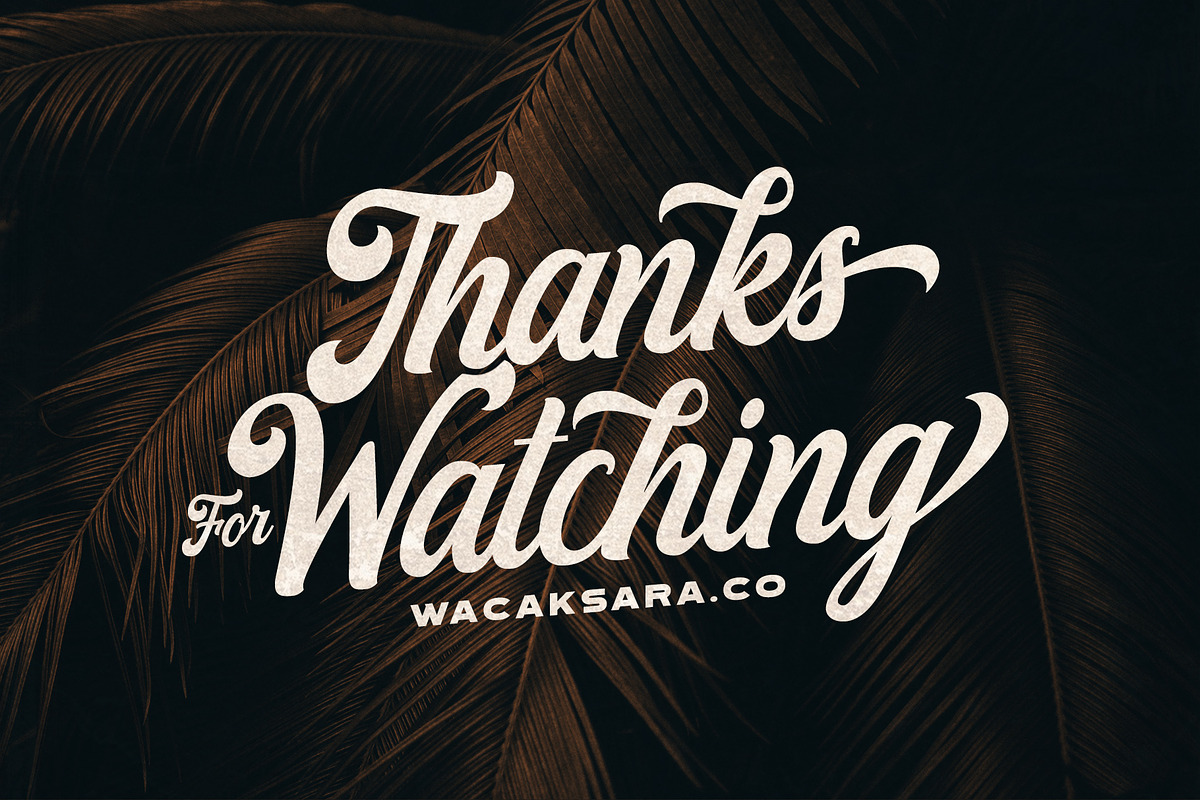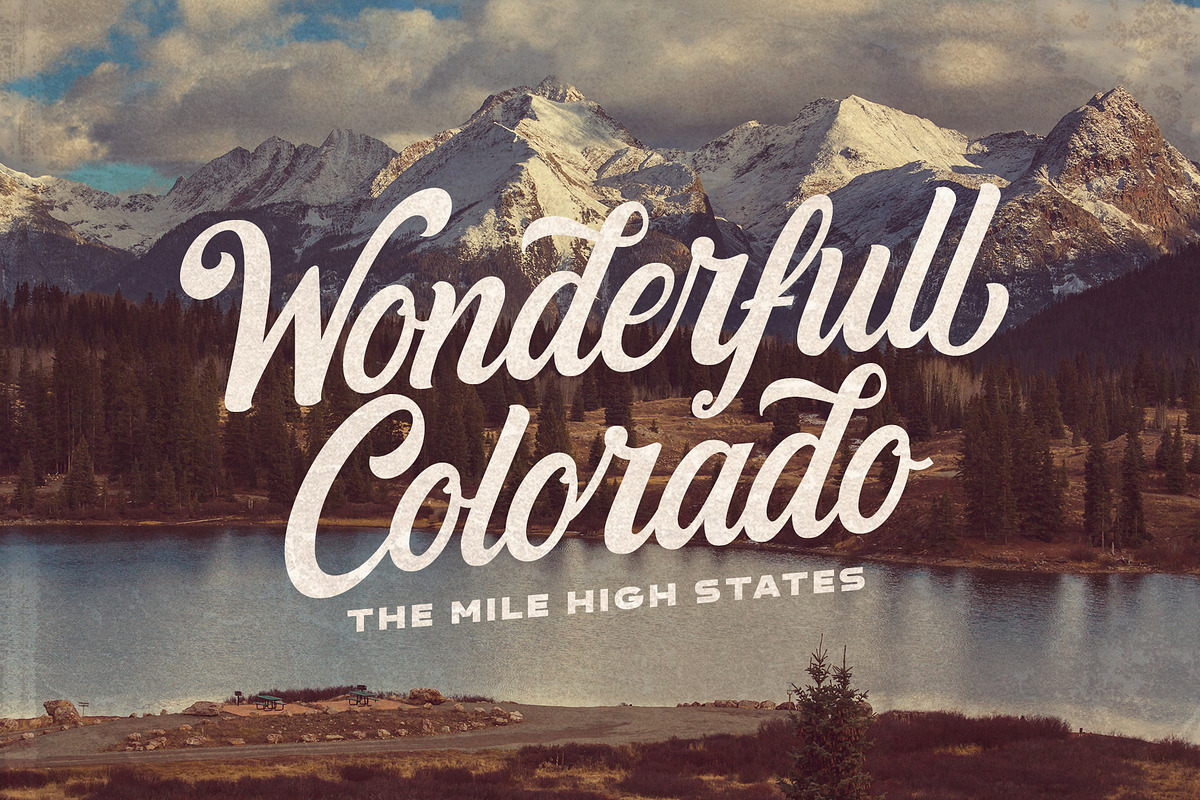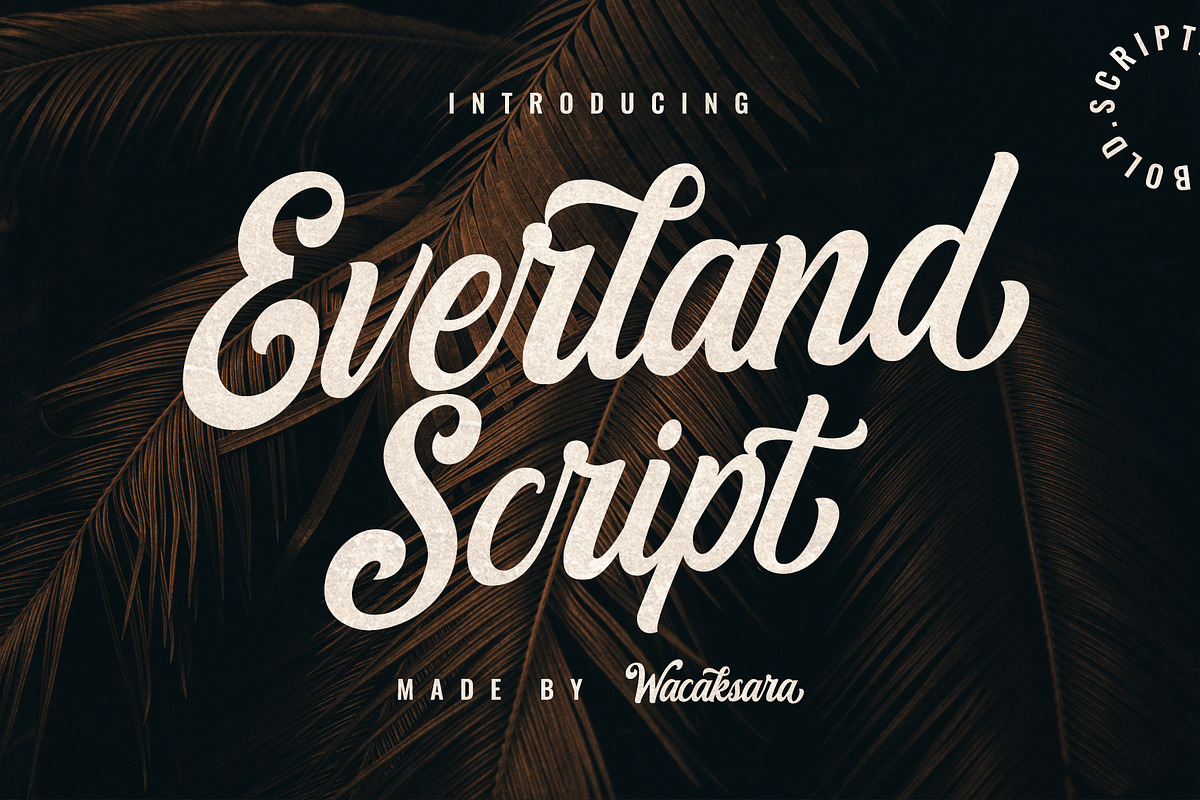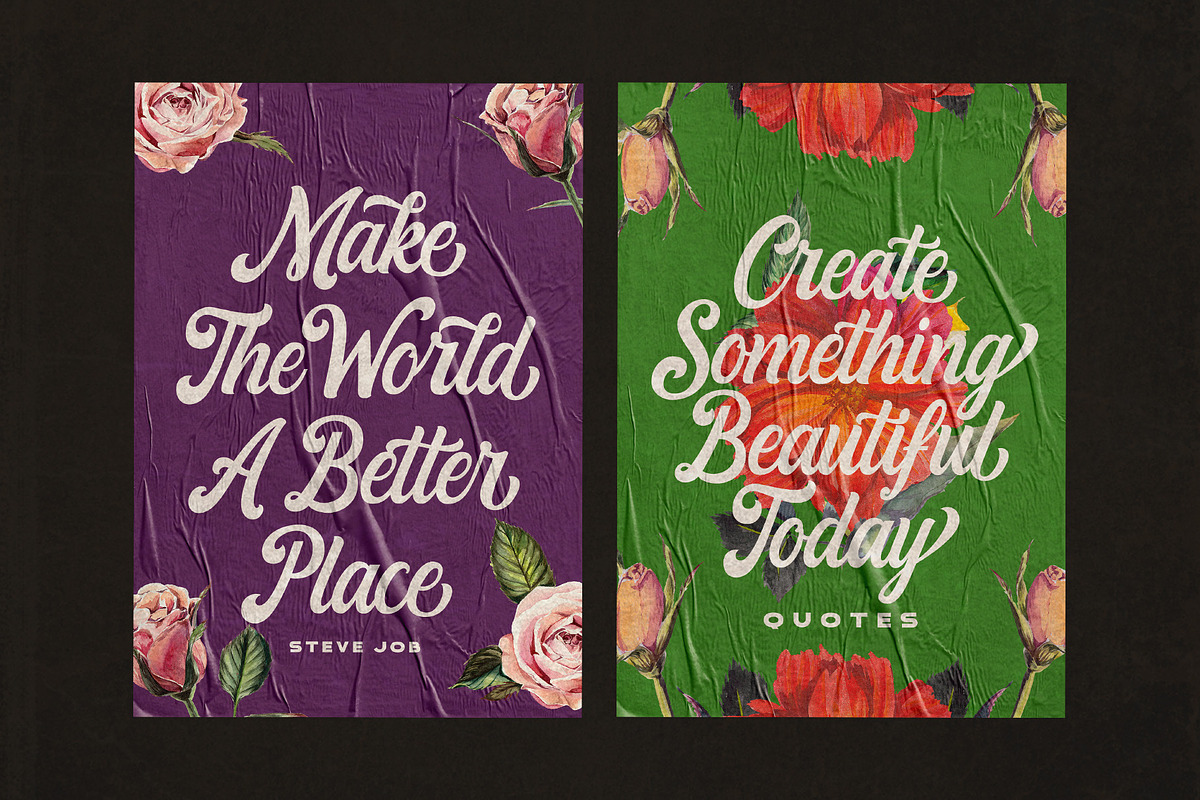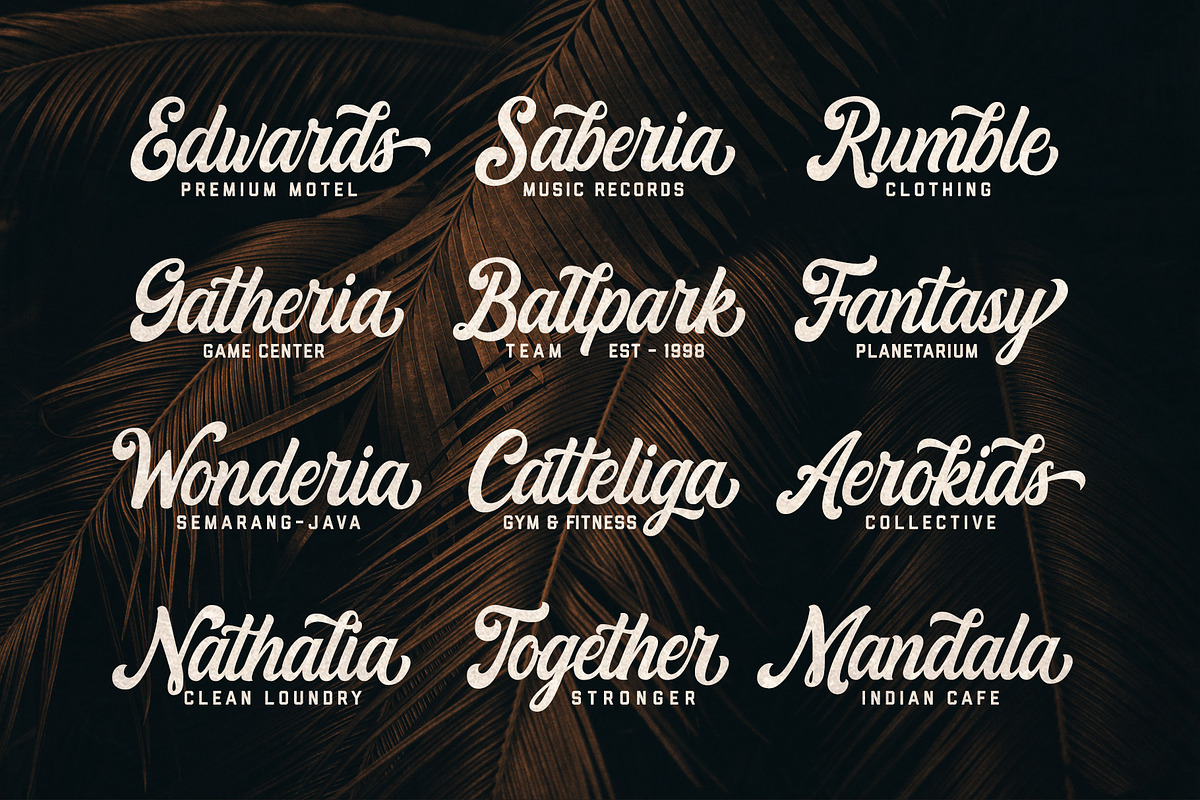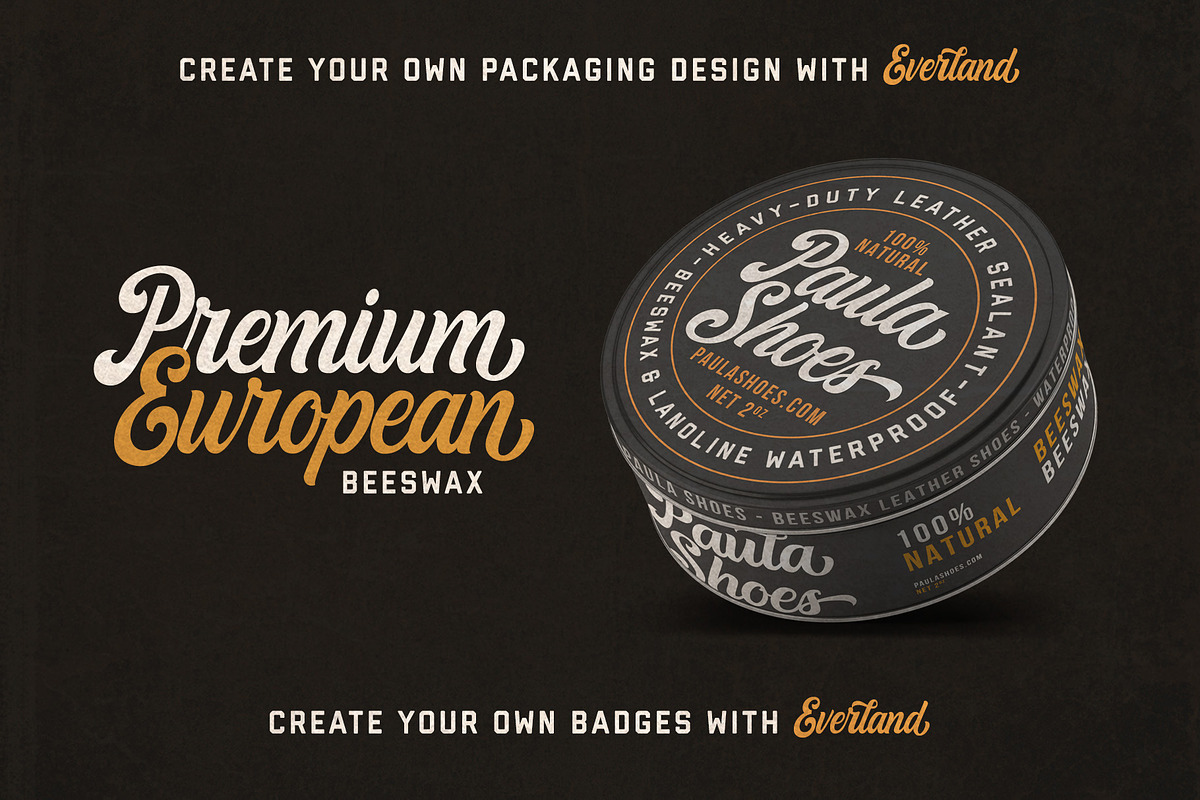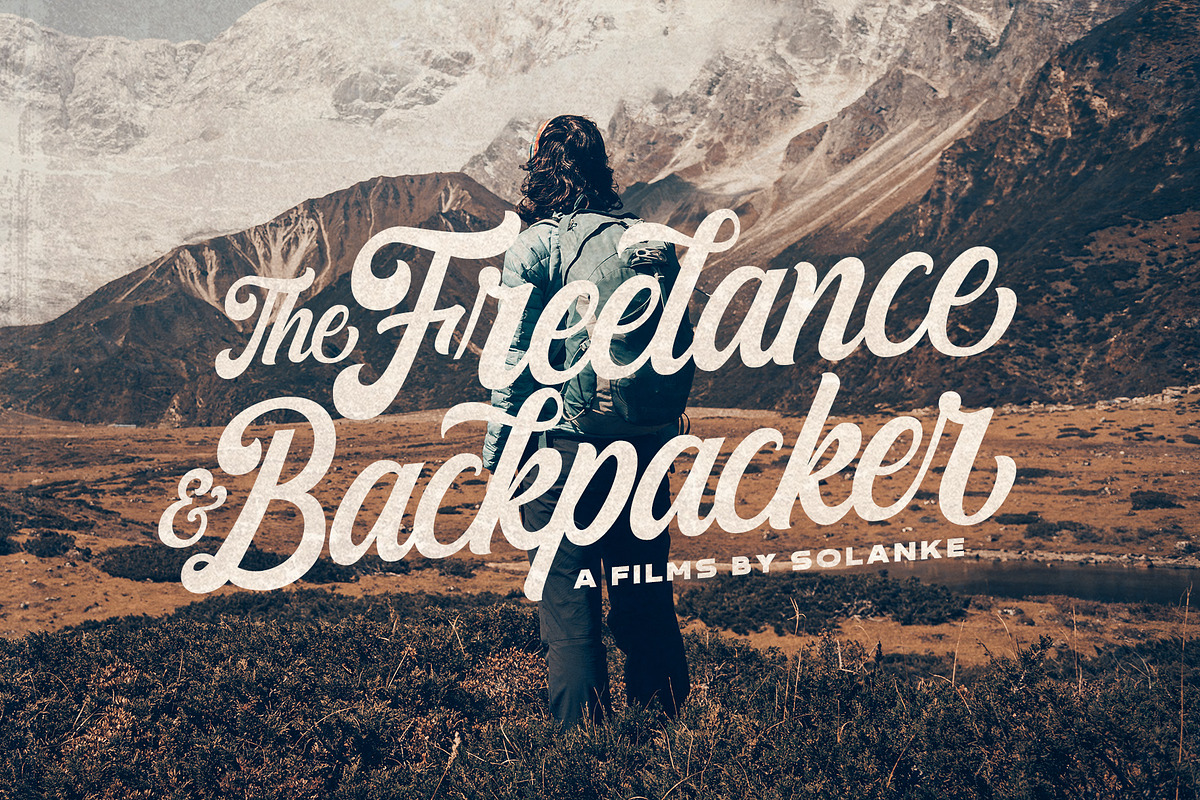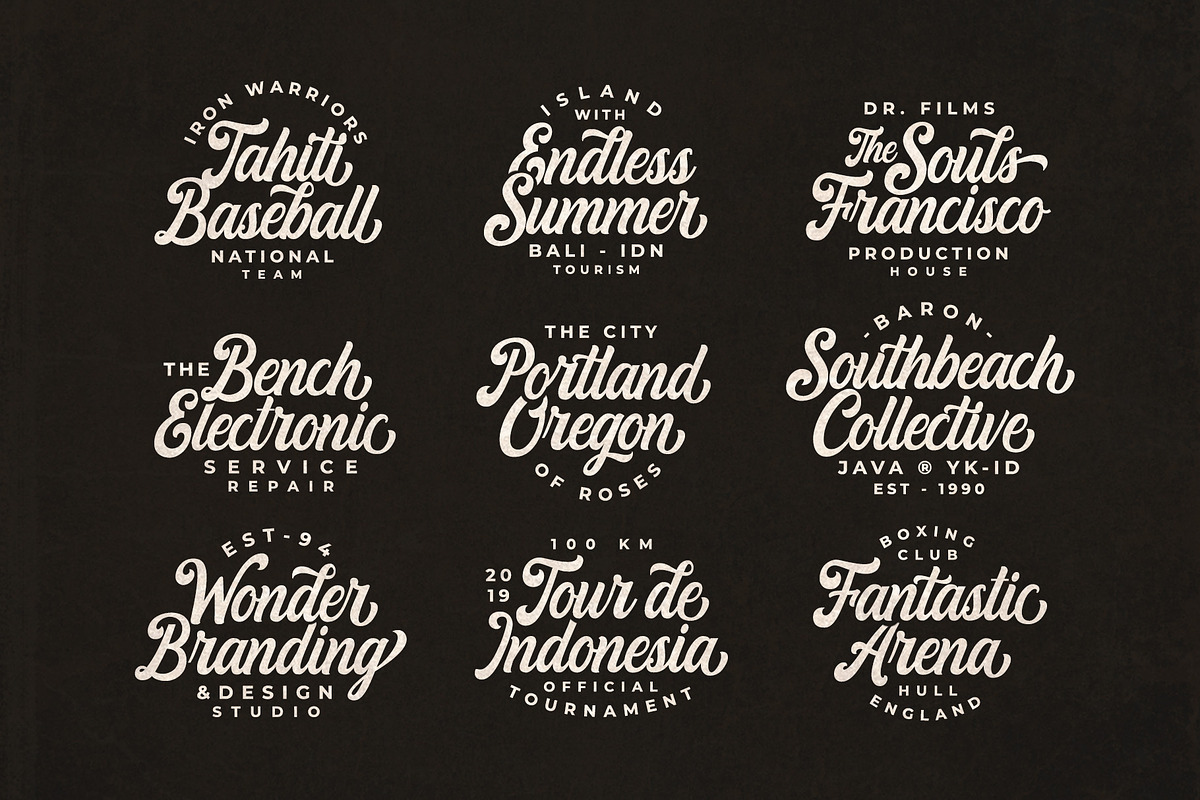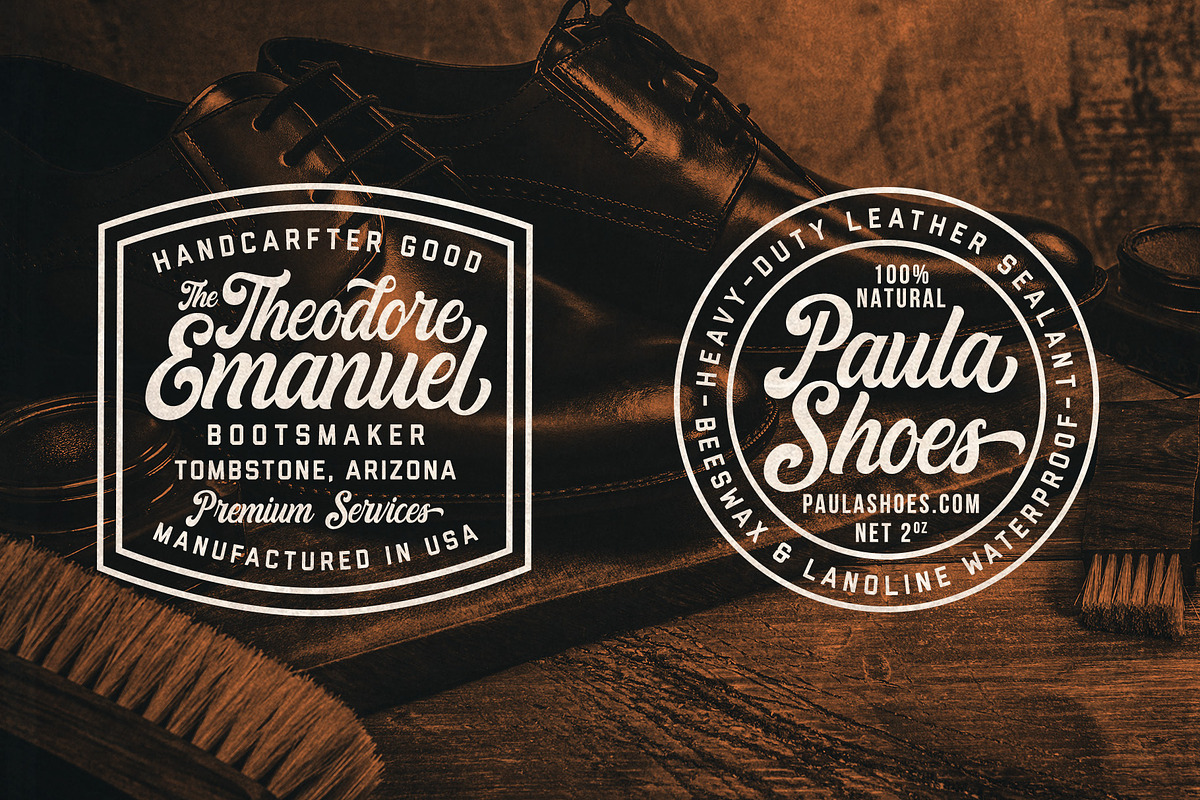
Everland Script
Everland Script is a hand painted bold script font inspired by old signage and sign painting. This font is great for your next creative project such as Logotype, printed quotes, invitations, cards, product packaging, headers, Letterhead, Poster, Apparel Design, Label, and etc.
Everland Script comes with uppercase, lowercase, numerals, punctuations and so many variations on each character include OpenType alternates, and common ligatures to let you customize your designs.